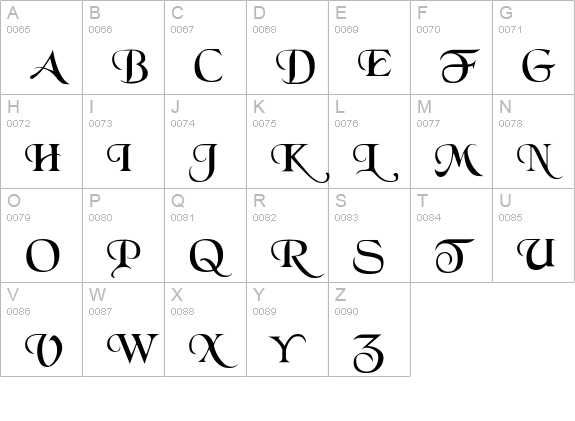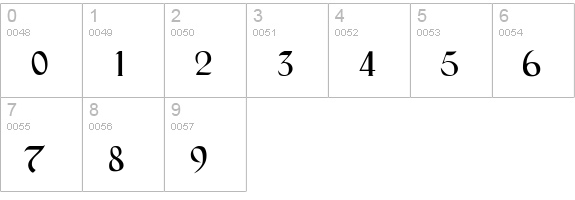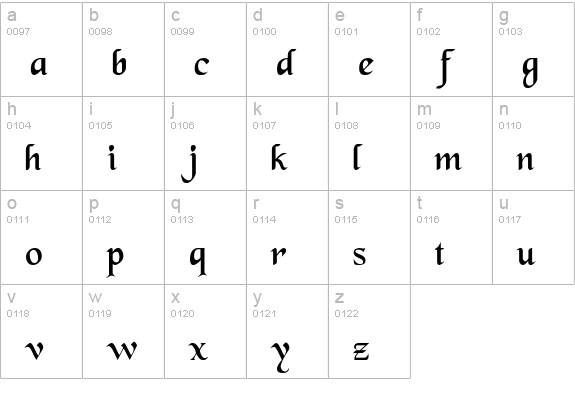
Blue Moon Font Details
Blue Moon font is a whimsical and elegant typeface that exudes a sense of mystery and charm. With its flowing lines and delicate curves, this font is perfect for adding a touch of sophistication to any design project. Whether you're creating invitations, logos, or branding materials, Blue Moon font will elevate your work to new heights. The best part? Blue Moon font is completely free to download at FontsMarket.com. So go ahead and add this stunning font to your collection today and watch your designs shine with its unique beauty and grace.